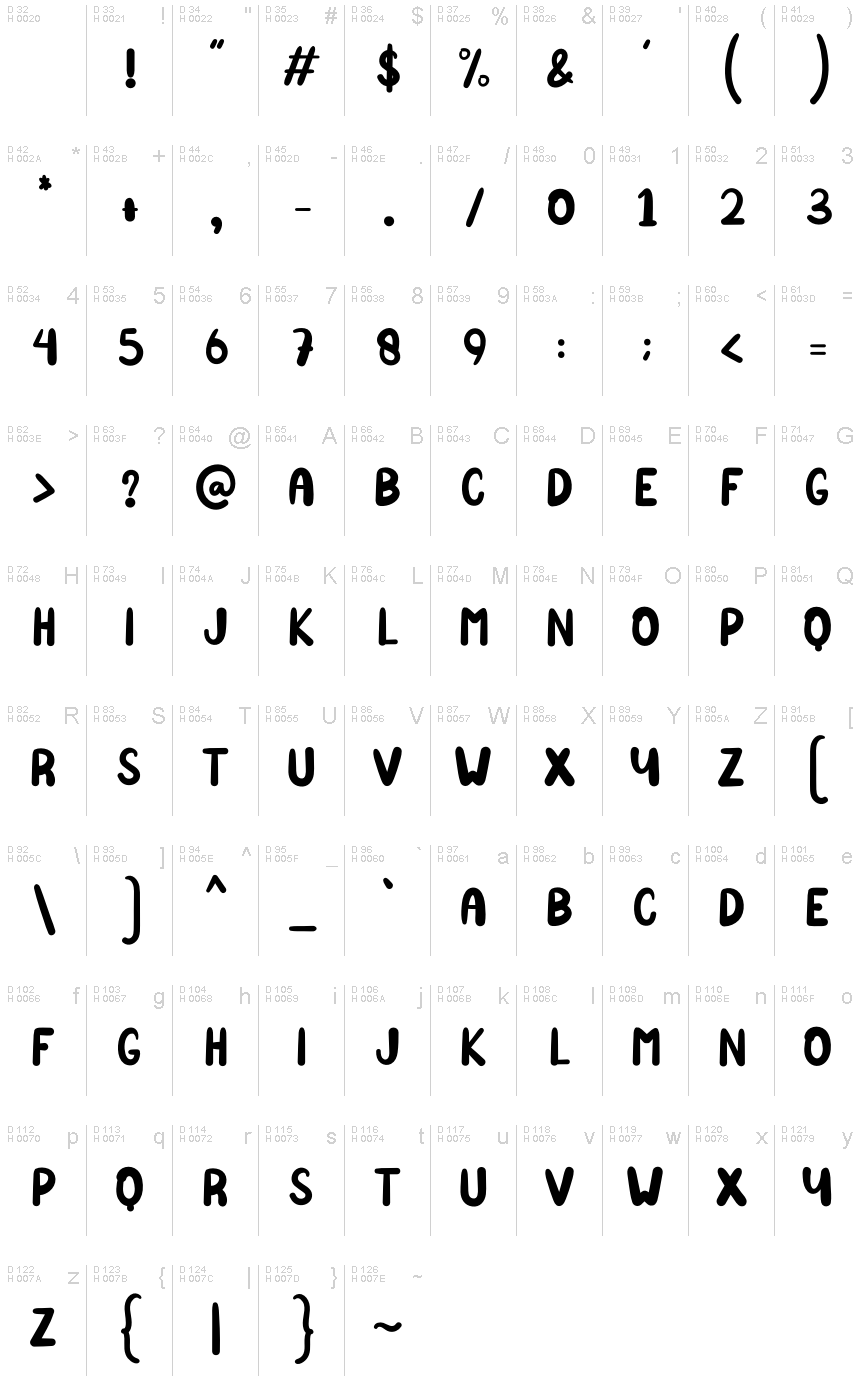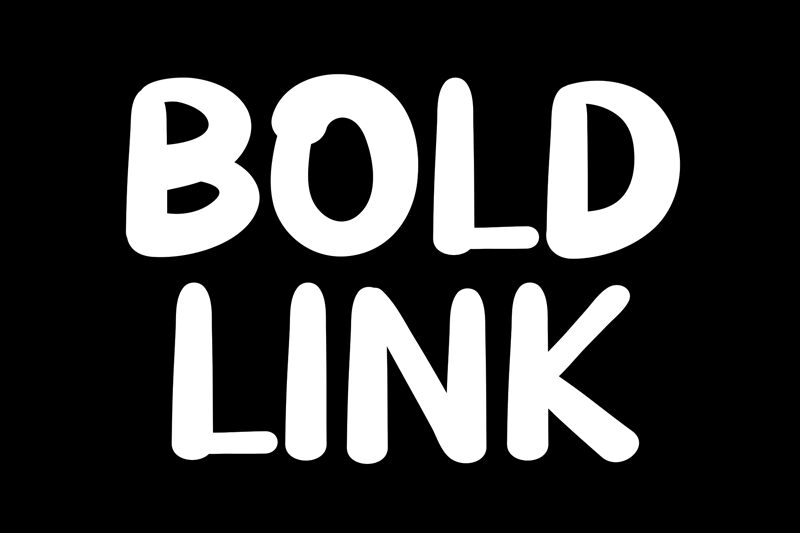
Bold Link
Bold Link is a sweet and friendly handwritten display font crafted by Andi Moz. With its smooth brush strokes and playful aesthetic, this font exudes a charming, approachable vibe. The bold, confident letterforms and natural flow of the design create a sense of warmth and accessibility, making it a delightful choice for a variety of creative projects.
Bold Link's versatility shines through, making it an ideal selection for wedding invitations, greeting cards, and other designs that require a touch of whimsy and personality. Its striking visual appeal and adaptability across different design contexts ensure that Bold Link by Andi Moz can elevate the overall aesthetic and evoke a sense of joy and playfulness in any project it graces.